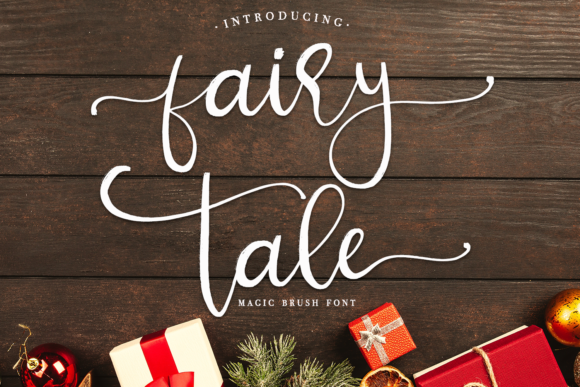
Fairy Tale Font: A Whimsical and Versatile Handwritten Font
In the world of typography, few fonts capture the essence of whimsy and romance as beautifully as the Fairy Tale font. This stunning, thin brush-style handwritten font has been gaining popularity among designers and artists, and for good reason. Its incredibly versatile style makes it perfect for creating spectacular designs that transport us to a world of fantasy and enchantment.
What is Fairy Tale Font?
Fairy Tale font is a modern, handwritten typeface that exudes elegance and sophistication. Its delicate, cursive strokes and subtle flair at the terminals evoke a sense of nostalgia and romance, reminiscent of classic fairy tales. The font’s thin brush style gives it a light, airy feel, making it perfect for designs that require a touch of whimsy and playfulness.
Key Features of Fairy Tale Font
- Thin Brush Style: Fairy Tale font boasts a beautiful, thin brush style that gives it a delicate and refined appearance.
- Handwritten: The font’s handwritten nature adds a touch of personality and warmth to any design.
- Versatile: Fairy Tale font is incredibly versatile, making it suitable for a wide range of design applications, from wedding invitations to brand logos.
- Elegant: The font’s elegant, cursive strokes and subtle flair at the terminals evoke a sense of sophistication and refinement.
Uses of Fairy Tale Font
Fairy Tale font is perfect for designers and artists looking to add a touch of whimsy and romance to their work. Here are some popular uses of the font:
- Wedding Invitations: The font’s elegant, cursive strokes make it perfect for wedding invitations, ceremony programs, and other wedding-related designs.
- Brand Logos: Fairy Tale font’s unique, handwritten style makes it an excellent choice for brand logos that require a touch of personality and sophistication.
- Social Media Graphics: The font’s versatility and playfulness make it ideal for social media graphics, such as Instagram posts, Facebook covers, and Twitter headers.
- Stationery: Fairy Tale font is perfect for designing stationery, including letterheads, business cards, and thank-you cards.
Design Tips for Using Fairy Tale Font
To get the most out of Fairy Tale font, here are some design tips to keep in mind:
- Pair with Bold Fonts: Pair Fairy Tale font with bold, sans-serif fonts to create a striking contrast and add visual interest to your design.
- Use Pastel Colors: Soft, pastel colors complement Fairy Tale font’s delicate style and add a touch of whimsy to your design.
- Experiment with Ligatures: Fairy Tale font features beautiful ligatures that can add a touch of elegance and sophistication to your design.
- Keep it Simple: Don’t over-accessorize your design. Keep it simple and let Fairy Tale font’s beauty shine through.
Design Inspiration: Examples of Fairy Tale Font in Use
Here are some inspiring examples of Fairy Tale font in use:
Wedding invitation featuring Fairy Tale font, paired with a bold sans-serif font and soft pastel colors.
Social media graphic featuring Fairy Tale font, used to promote a fashion brand’s new collection.
Stationery set featuring Fairy Tale font, including letterheads, business cards, and thank-you cards.
In conclusion, Fairy Tale font is a stunning, thin brush-style handwritten font that is sure to capture your heart. Its incredibly versatile style makes it perfect for creating spectacular designs that transport us to a world of fantasy and enchantment. With its elegant, cursive strokes and subtle flair at the terminals, Fairy Tale font is the perfect choice for designers and artists looking to add a touch of whimsy and romance to their work.